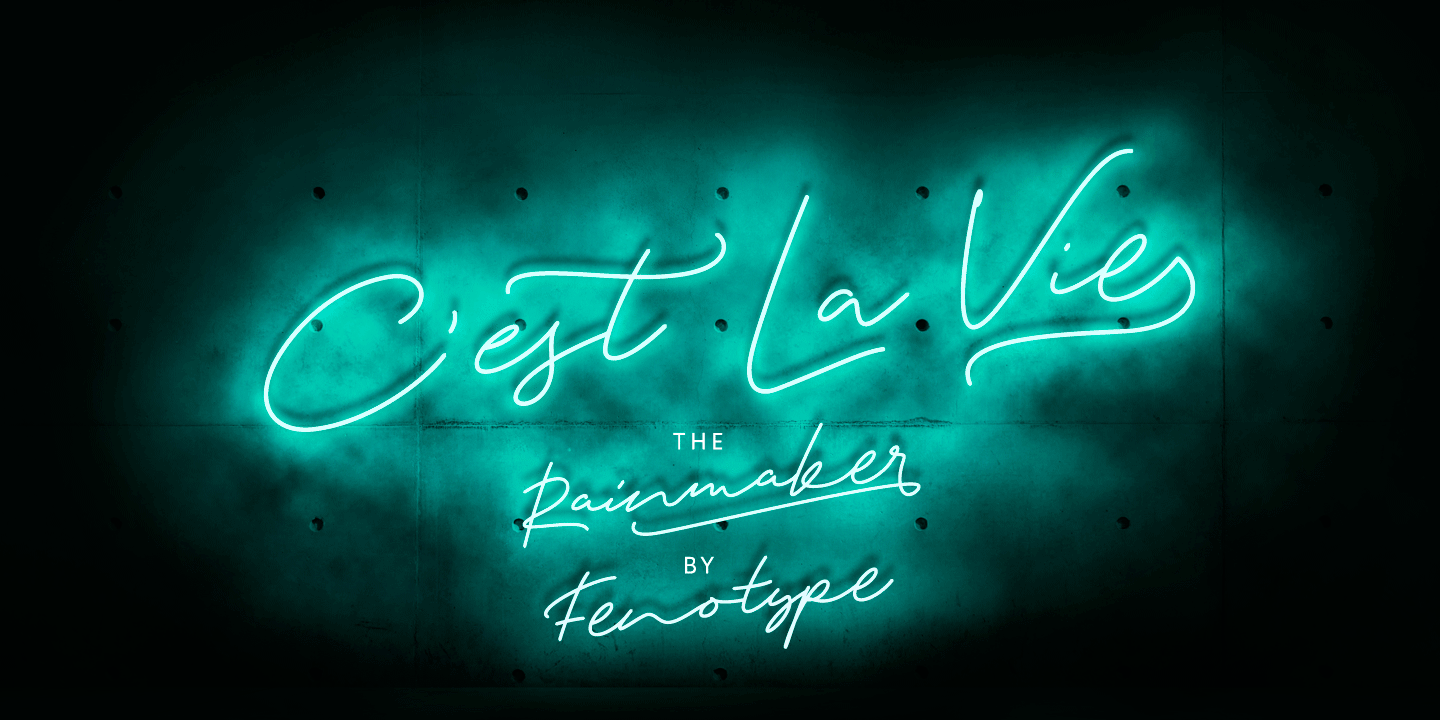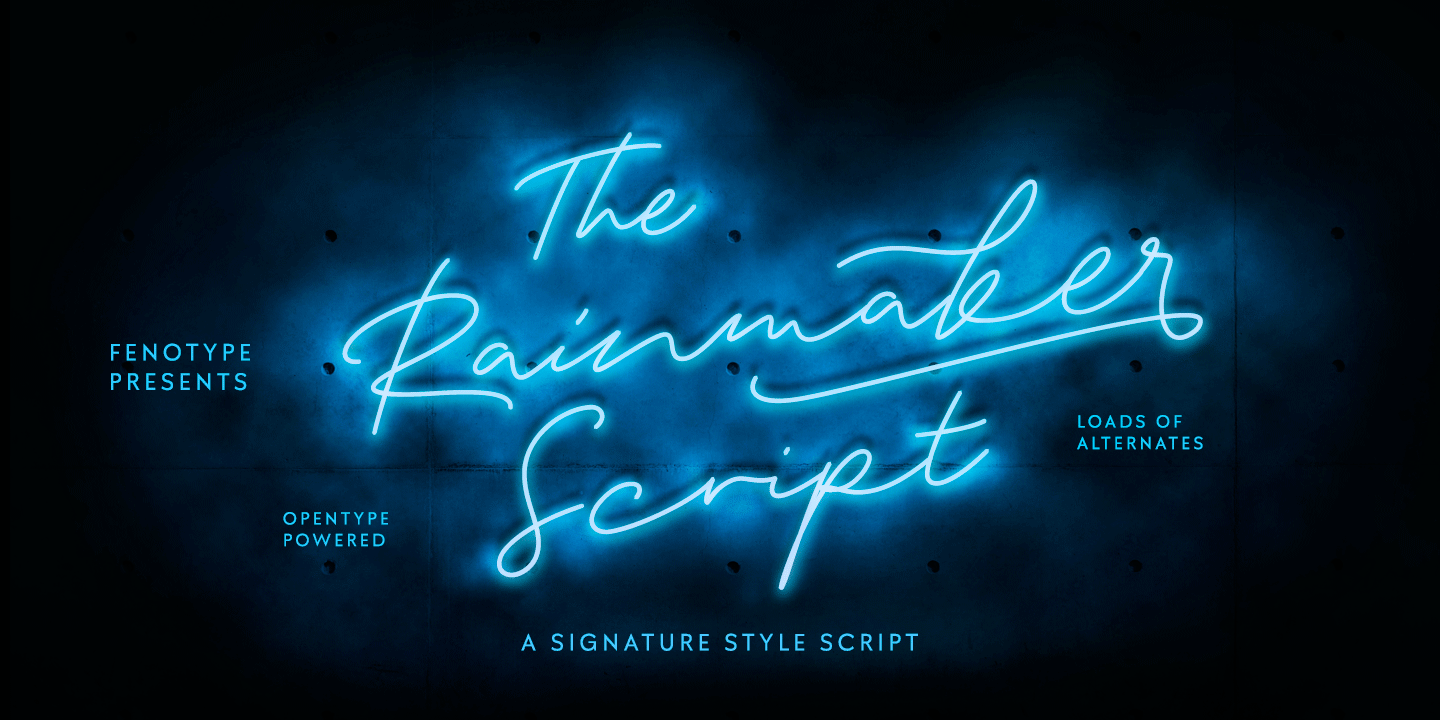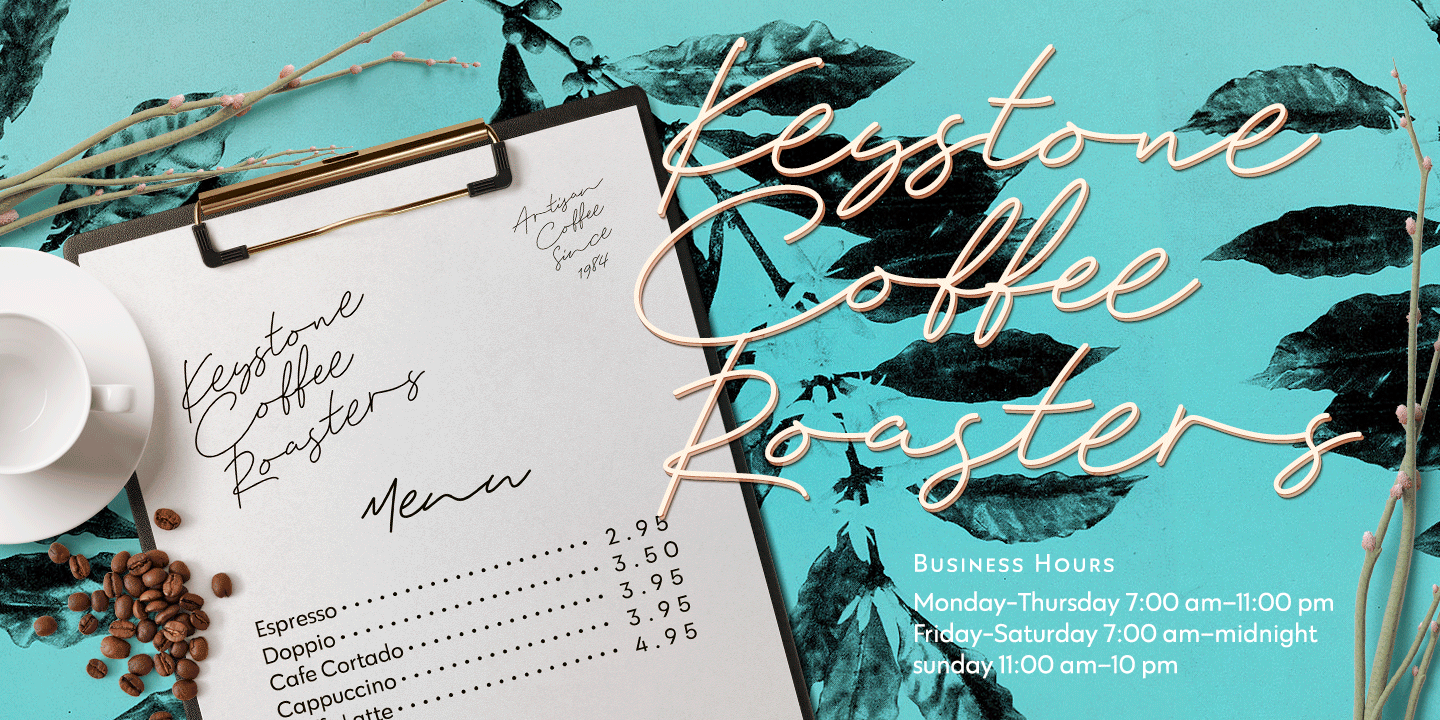
About Rainmaker Script
I started Rainmaker Script by hand sketching a huge amount of letters to find the right tone. After having enough I picked the characters that I liked and begun composing a font out of them. With this method I ended up with the Rainmaker Script – an elegant…